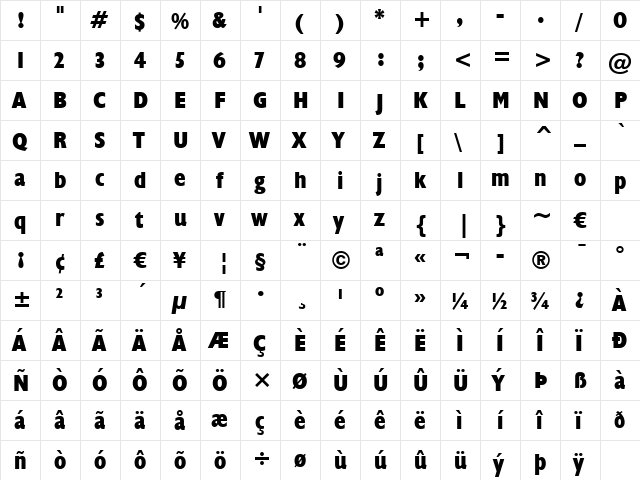
Humanst521 XBdCn BT Extra Bold
Design Context for Humanst521 XBdCn BT Typeface
Humanst521 XBdCn BT offers clean, dependable letterforms without strong stylistic allegiance, making it a practical choice for designers who need flexibility. The heavy weight commands attention and anchors typographic hierarchies.